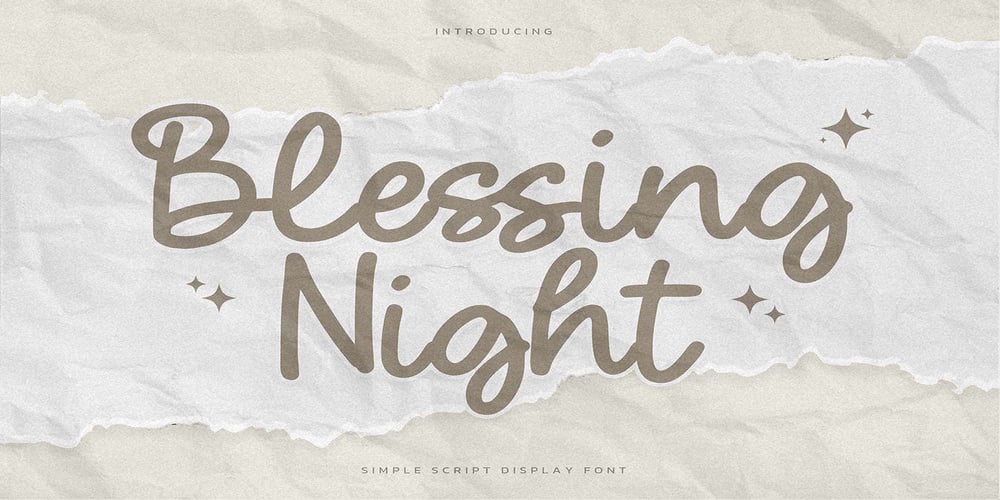
Blessing Night
Blessing Night font
Blessing Night Font Family was designed by Abdul Malik Wisnu, Anang Fibriyanto and published by Gassstype. Blessing Night contains 1 styles and family package options. Hello Everyone, introduce our new product Font Blessing Night This Is Simple Script Display Font .This is a Textured Natural Style and classy style with a clear style and dramatic movement.That is has charming, authentic and relaxed characteristic more natural look to your text. You can activate 14 Ligatures glyphs OpenType panel.